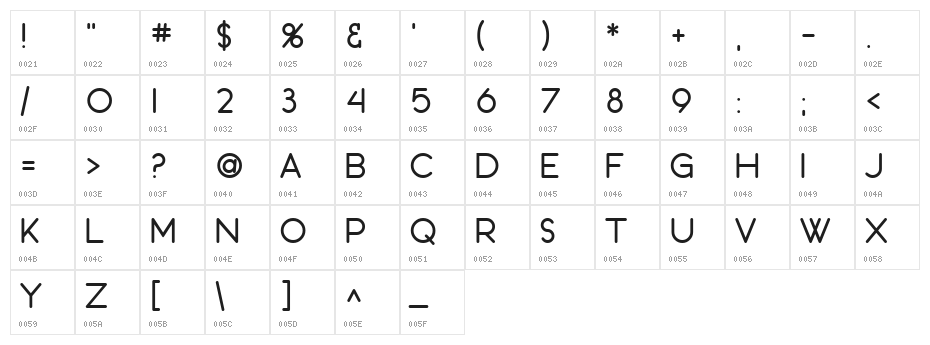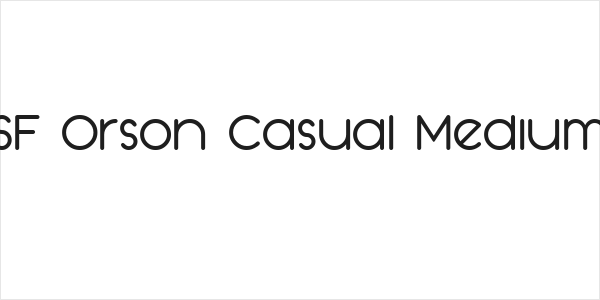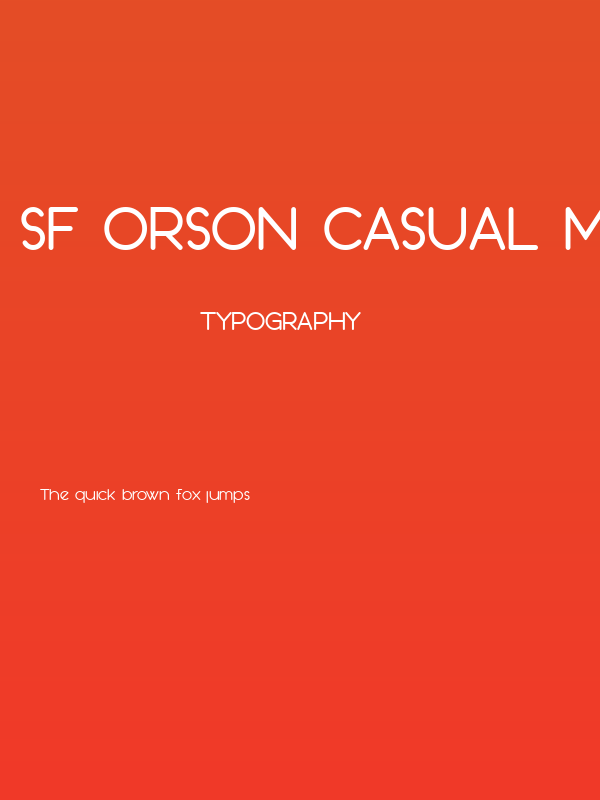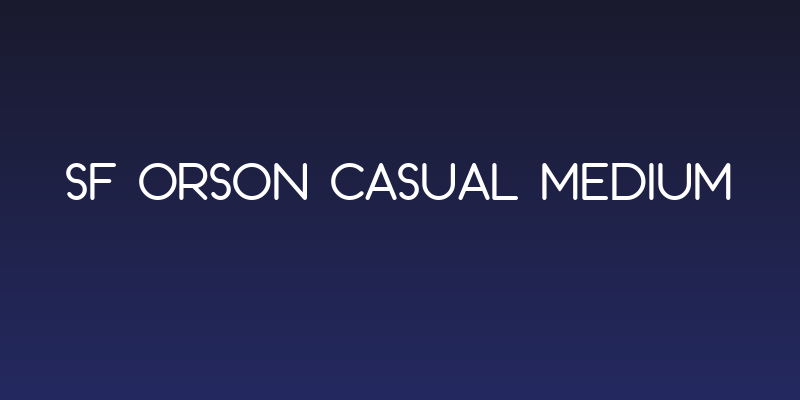
SF Orson Casual Medium Font
SF Orson Casual Medium Description
This font features a clean, modern design with rounded edges and a geometric structure. The characters are evenly spaced, providing a balanced and harmonious appearance. The uppercase letters are bold and assertive, while the lowercase letters maintain a friendly and approachable feel. The numerals are clear and legible, making them suitable for various applications. Special characters are distinct and well-integrated into the overall design, enhancing the font's versatility. The smooth curves and consistent line thickness contribute to its contemporary aesthetic, making it ideal for digital and print media.